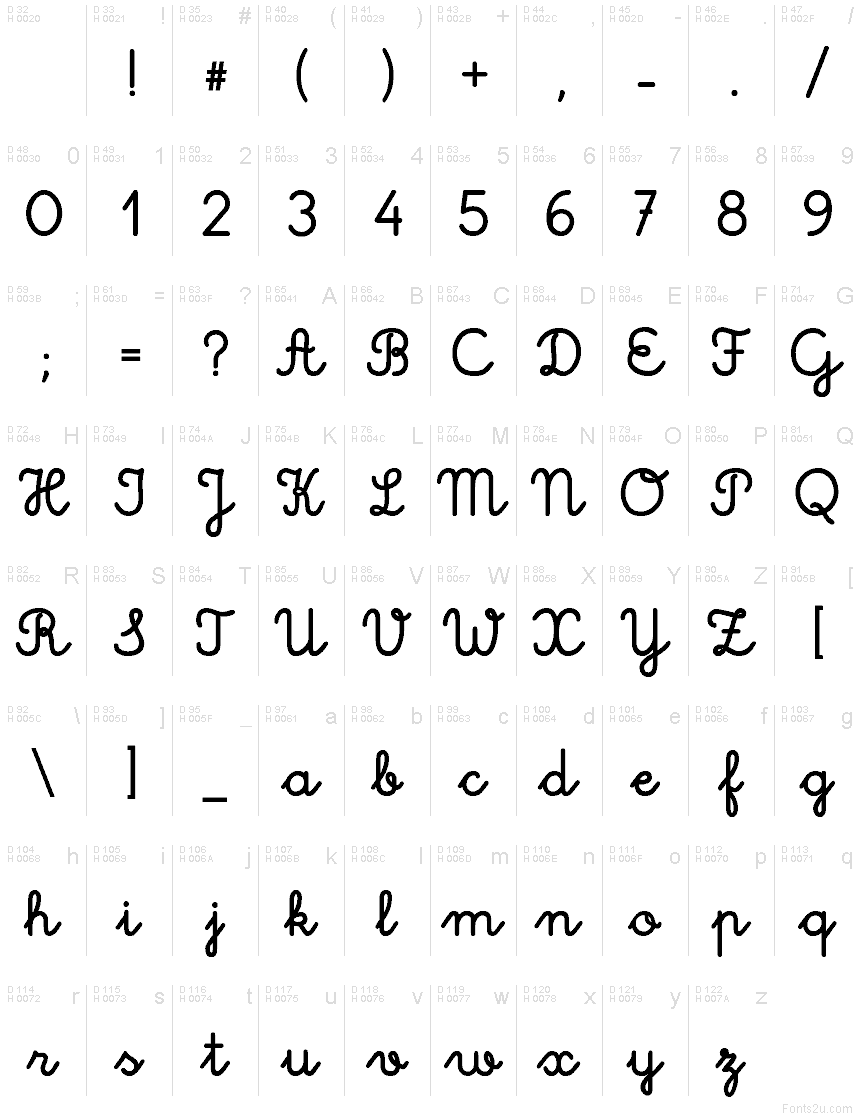
EscolarBrasil Bold
Escolar Brasil Bold font by Rosnalda Oliveira is a free school script typeface in the Escolar Brasil family. Its rounded strokes, gentle slant, and steady rhythm mimic neat classroom cursive, while the sturdy weight keeps words crisp on worksheets and hallway posters. Letters connect smoothly without fuss, so lines read as friendly, confident strokes rather than fussy loops.
Using Escolar Brasil Bold, headlines and labels feel approachable and clear—great for handwriting worksheets, classroom posters, bulletin boards, kids’ book covers, educational app headers, and daycare branding. This free font shines when you need warmth with order: the spacing stays open, and the boldness holds up on low-cost prints. Pair it with a plain, modern sans for body copy and keep sizes generous to preserve its easy, flowing texture.